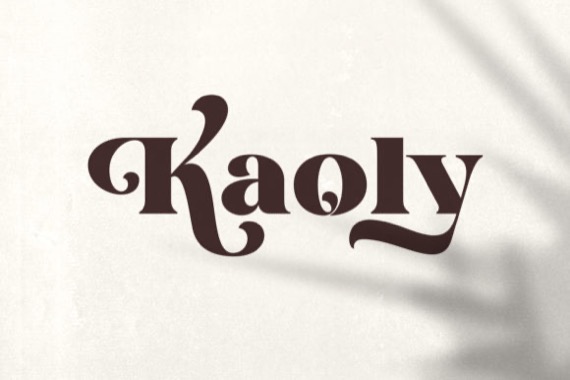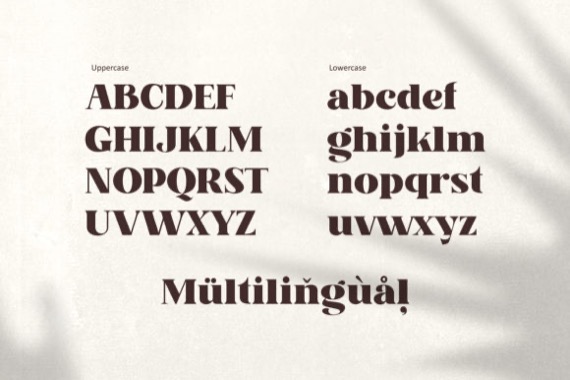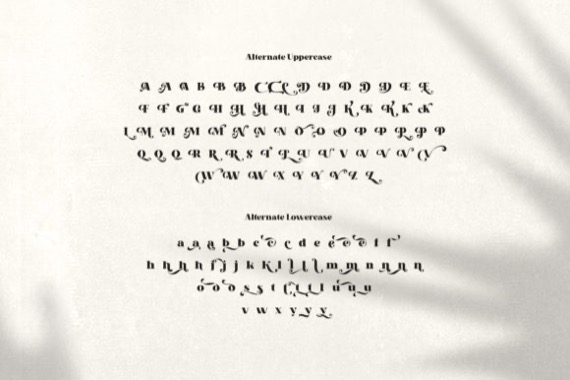
Kaoly is a trendy, stylish serif display font that commands attention with its cool presence. Fall in love with its incredibly versatile style and use it to create gorgeous wedding invitations, beautiful stationary art, eye-catching social media posts, and much more!
Kaoly Display Serif Font